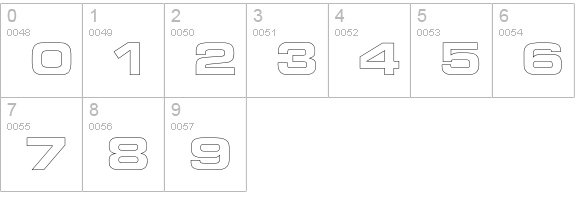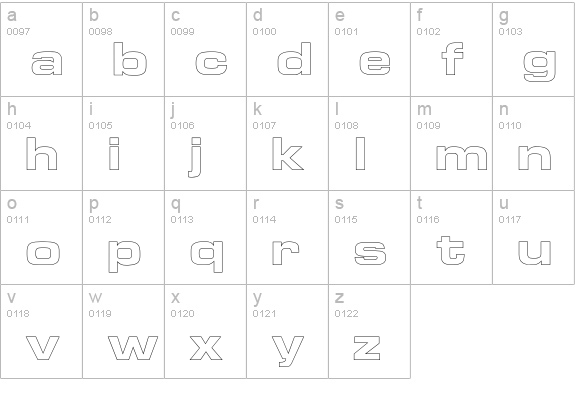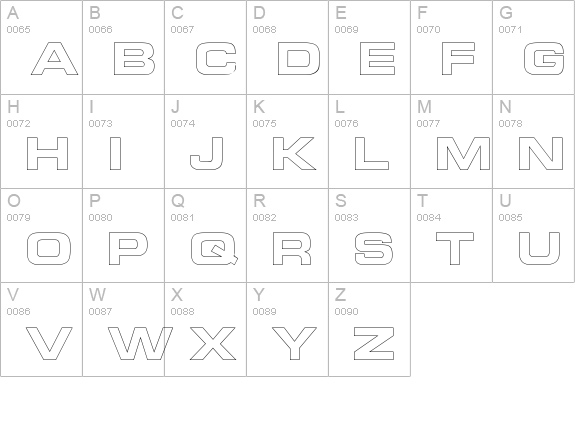
EuroTechnicExtBoldOutline Font Details
Below you can preview EuroTechnicExtBoldOutline in uppercase [A-Z], lowercase [a-z] and numbers [0-9]. You can also read the author's notes and license information before downloading.
EuroTechnicExtBoldOutline font is a modern and sleek typeface that exudes professionalism and innovation. Its bold outline design gives it a strong and impactful presence, making it perfect for headlines, logos, and other attention-grabbing designs. The geometric shapes and precise lines of this font convey a sense of precision and technical expertise. Best of all, EuroTechnicExtBoldOutline font is available for free download at FontsMarket.com. This means that you can easily access and use this versatile typeface in your projects without any cost. Whether you need a font that stands out on digital platforms or printed materials, EuroTechnicExtBoldOutline font is a fantastic choice that combines style and functionality seamlessly. Elevate your designs with this dynamic font today!